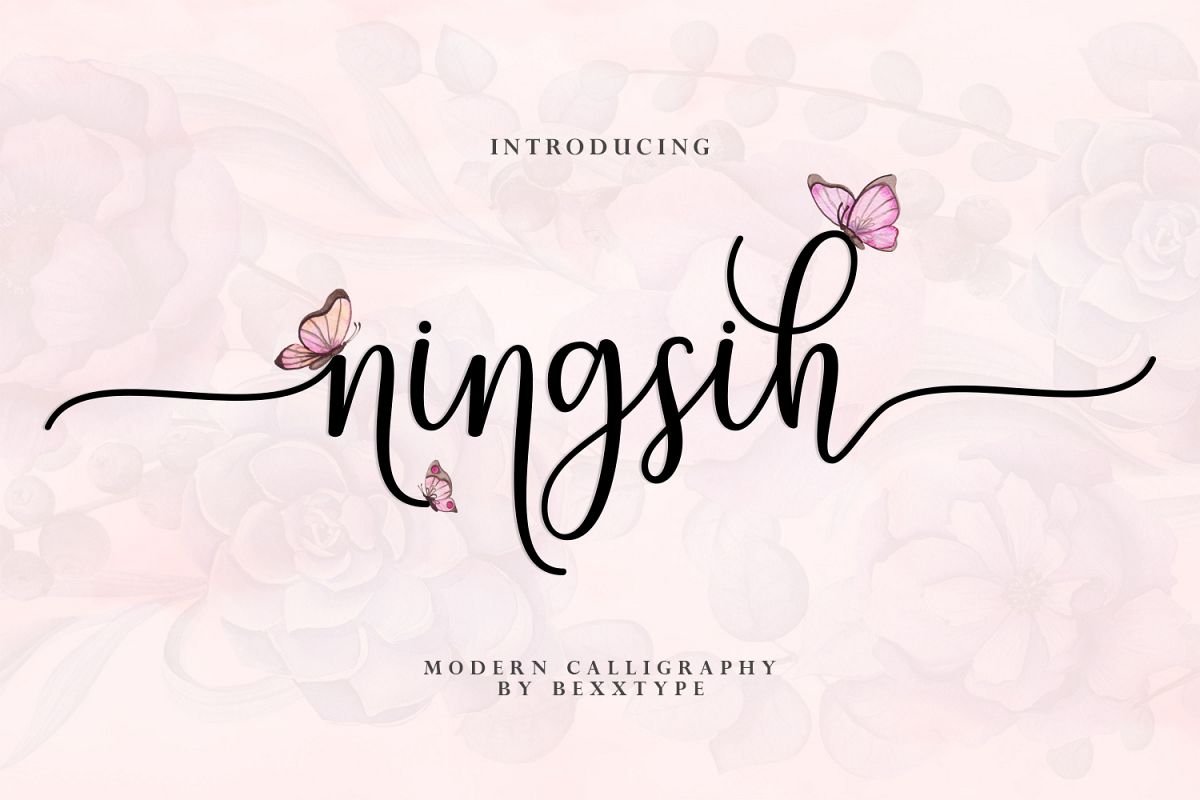
Ningsih Script | Luxury Font
Hello! This font is a challenge from my future wife.
Ningsih Script a new fresh & modern script with a handmade calligraphy style, decorative characters and a dancing baseline! So beautiful on invitation like greeting cards, branding materials, business cards, quotes, posters, and more!!
Ningsih Script come with 521 glyphs. The alternative characters were divided into several Open Type features such as Swash, Stylistic Sets, Stylistic Alternates, Contextual Alternates.
Ningsih Script :